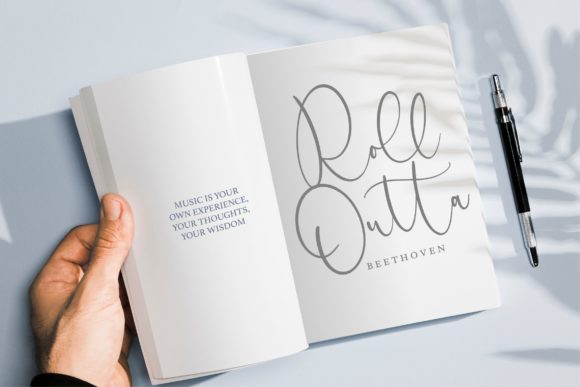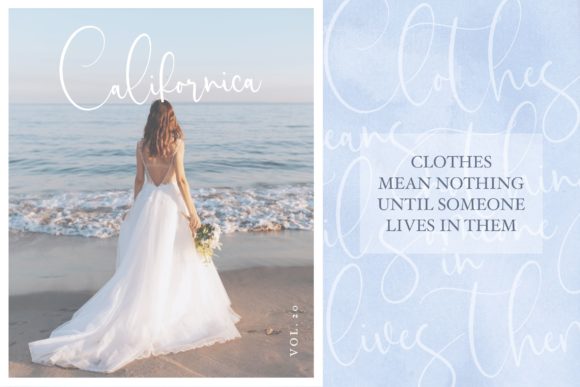
Birdwatch Font
db-ku.com - Script & Handwritten -- Birdwatch is a handwritten font with a luxurious and modern styles. Birdwatch is perfect for product packaging, branding projects, magazines, social media posts, wedding invitations, or just to express words above a nice background.